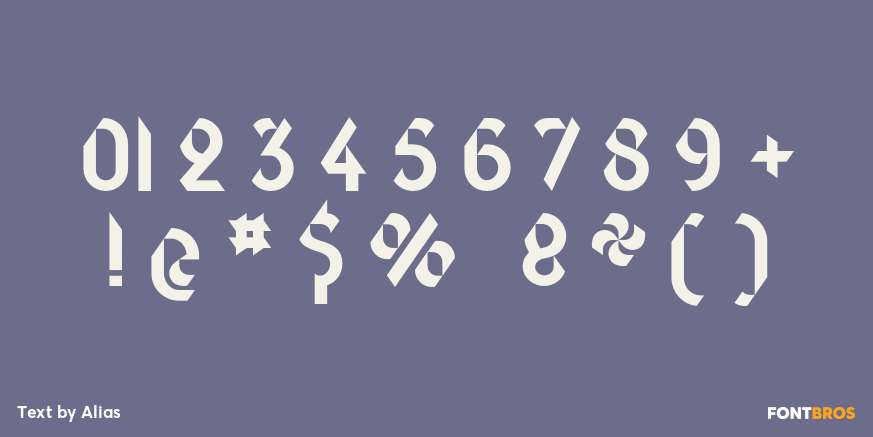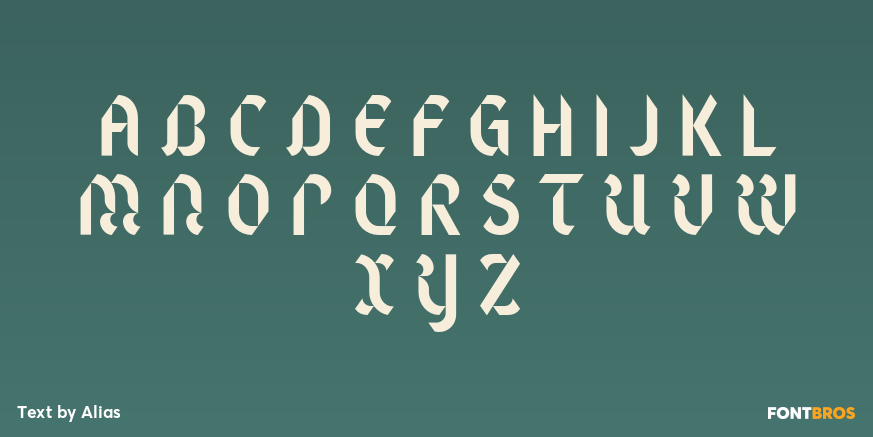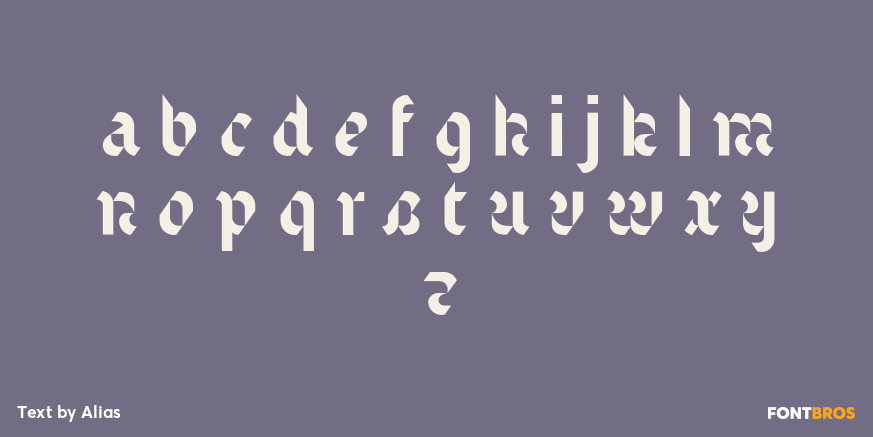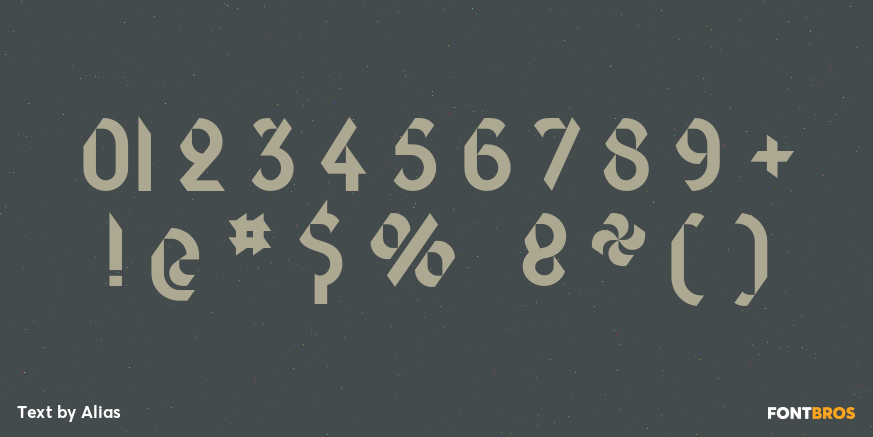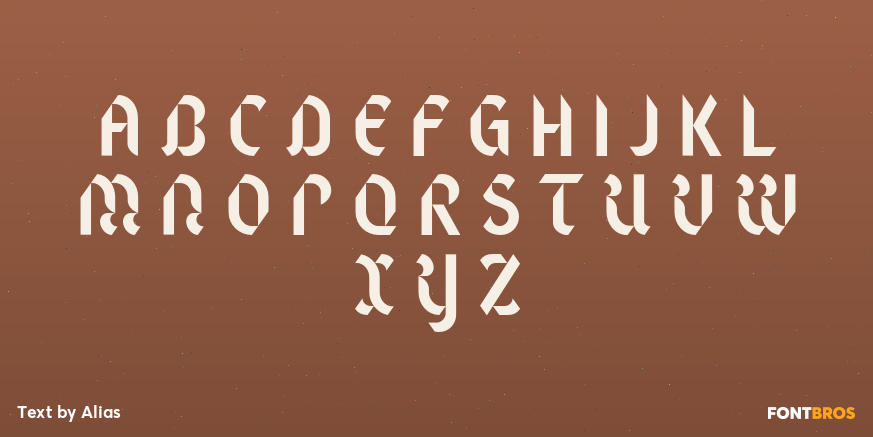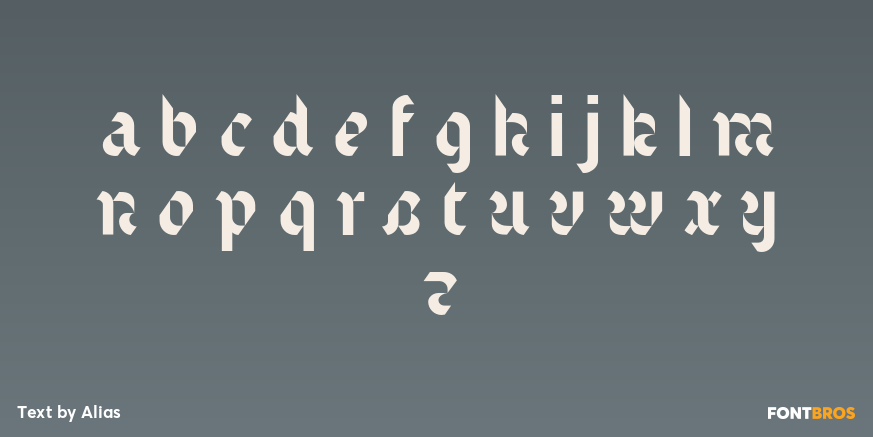
Text
Font Family by Alias
Whereas blackletter types were hand written, Text letterforms are drawn using a series of graphic shapes that slot together in a series of permutations, one set for lower case and another for the upper case. As the link between the method of construction of the letterforms has been removed from the appearance (the quill pen with which they were written resulting in the angle and sharp stresses) there is no logic for these stylistic elements to work in any set way. As this fundamental rule of the blackletter style has been removed the typeface has become something other than a typical or derivative blackletter font.